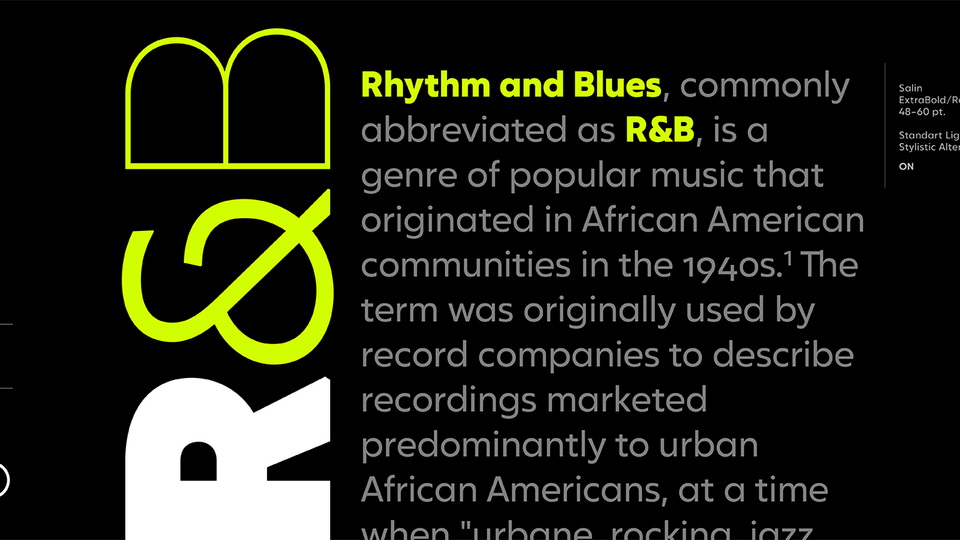
Salin Font
Salin is a modern sans serif font family with a geometric and humanist touch. Ideal for corporate identity, poster, brochure, orientation signs, and all kinds of graphic design works.
Salin News and Salin News Italic fonts are free and specially made for long paragraph texts which are written with small sizes. They provide smooth and fluent reading, also they are free for improved reading experience.
The complete Salin family has totally 20 fonts with 10 weights and their appropriate italics. It contains rich opentype features. Includes extended language support, fractions, table figures, arrows, ligatures and more for each weight.